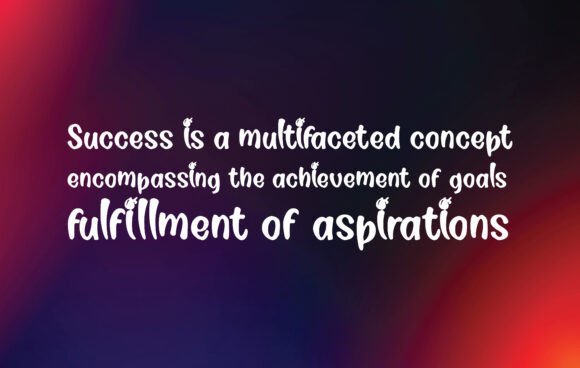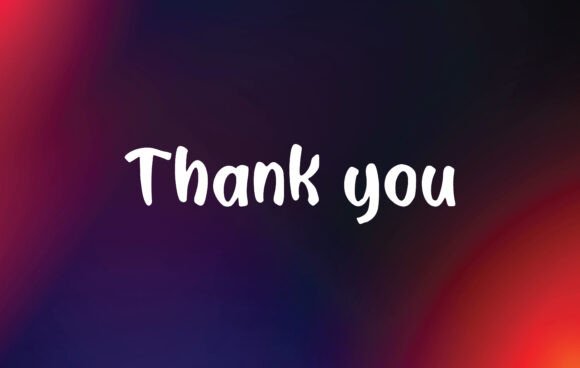
Egypt Font: Elevate Your Creative Projects with a Lovely Handwritten Style
Egypt is a stunning handwritten font that has the power to transform your creative ideas into visually stunning projects. With its unique and elegant style, this font is perfect for designers, crafters, and anyone looking to add a personal touch to their work. In this article, we’ll dive into the world of Egypt Font, exploring its features, benefits, and uses, as well as provide tips on how to make the most of this beautiful font.
What is Egypt Font?
Egypt Font is a carefully crafted handwritten font that boasts a distinctive and charming style. Its elegant curves and fluid lines make it perfect for creating eye-catching logos, branding materials, and quotes. This font is designed to help you take your creative projects to the next level, adding a touch of sophistication and personality to your work.
Features of Egypt Font
Egypt Font comes with a range of features that make it an excellent choice for designers and crafters. Some of its key features include:
- Unique and elegant style: Egypt Font has a one-of-a-kind handwritten style that sets it apart from other fonts.
- High-quality design: The font is carefully crafted with attention to detail, ensuring a high level of quality and consistency.
- Versatile: Egypt Font can be used for a wide range of projects, from logos and branding to quotes and social media graphics.
- Easy to read: Despite its elegant style, Egypt Font is easy to read, making it perfect for body text and captions.
Benefits of Using Egypt Font
So, why choose Egypt Font for your creative projects? Here are just a few benefits of using this beautiful font:
- Add a personal touch: Egypt Font’s handwritten style adds a personal and human touch to your work, setting it apart from more generic fonts.
- Stand out from the crowd: With its unique style, Egypt Font can help your project stand out from the crowd and grab attention.
- Enhance your brand: If you’re looking to create a strong brand identity, Egypt Font can help you achieve that with its elegant and sophisticated style.
Uses of Egypt Font
Egypt Font is a versatile font that can be used for a wide range of projects, including:
- Logos and branding: Create eye-catching logos and branding materials that showcase your unique style.
- Quotes and social media graphics: Add a touch of elegance to your quotes and social media graphics with Egypt Font.
- Invitations and stationery: Use Egypt Font to create beautiful invitations, stationery, and other paper goods.
- Web design: Egypt Font can be used for web design projects, including website headers, titles, and body text.
Tips for Using Egypt Font
To get the most out of Egypt Font, here are a few tips to keep in mind:
- Use it sparingly: Egypt Font is a statement font, so use it sparingly to make a bigger impact.
- Experiment with colors: Try pairing Egypt Font with different colors to create a unique and eye-catching look.
- Mix and match: Experiment with pairing Egypt Font with other fonts to create a unique and interesting look.
- Pay attention to spacing: Make sure to adjust the spacing between letters and words to ensure Egypt Font looks its best.
In conclusion, Egypt Font is a beautiful handwritten font that has the potential to elevate your creative projects to new heights. With its unique and elegant style, this font is perfect for designers, crafters, and anyone looking to add a personal touch to their work. By following the tips outlined in this article, you can make the most of Egypt Font and create stunning projects that showcase your creativity and style.